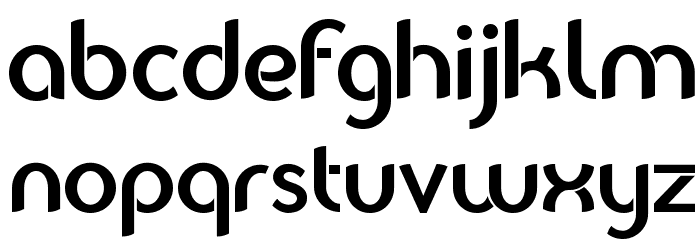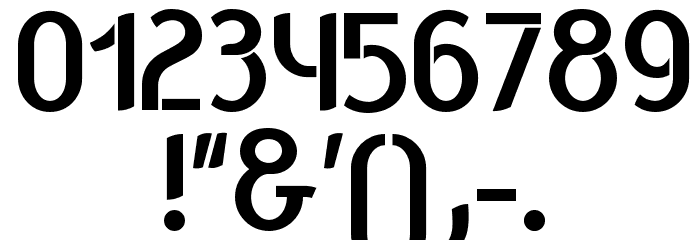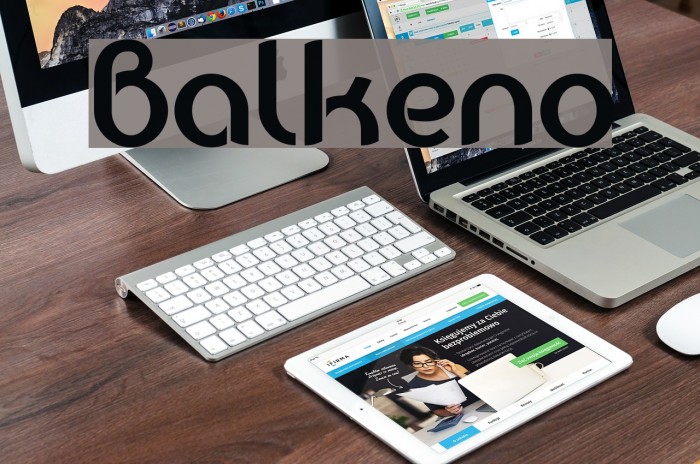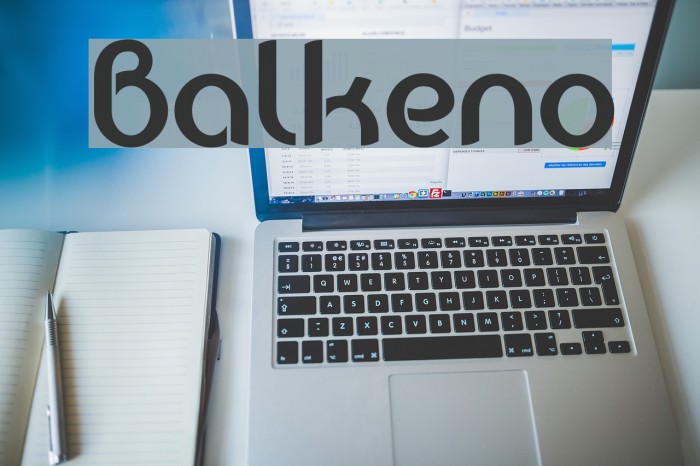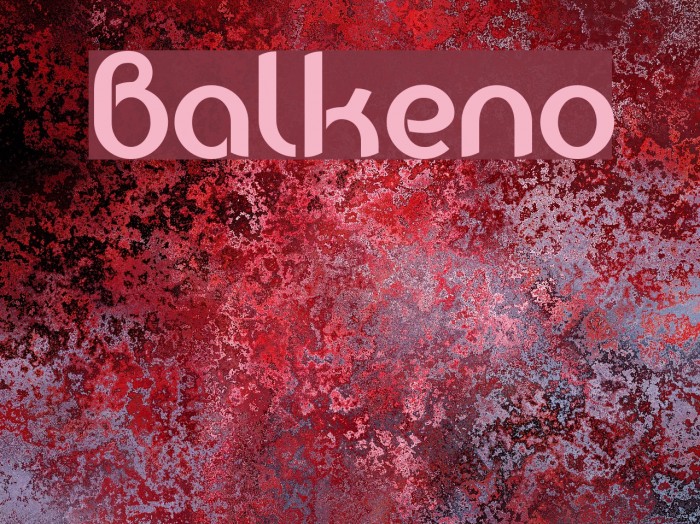
Balkeno Font
This font features a modern and geometric design with rounded edges and a clean, streamlined appearance. The characters are uniform in width, giving it a monospaced feel, although it is not strictly monospaced. The uppercase letters are bold and assertive, while the lowercase letters maintain a consistent style with slightly softer curves. The numerals are distinctive and easily readable, matching the overall aesthetic of the alphabet. Special characters are included, maintaining the same geometric style, making this font versatile for various applications.
A modern, geometric font with rounded edges and a clean, uniform appearance.
- Proposed Projects: Ideal for branding, digital interfaces, signage, and modern editorial design.
- Use Case: Headlines, Logos, Digital Interfaces